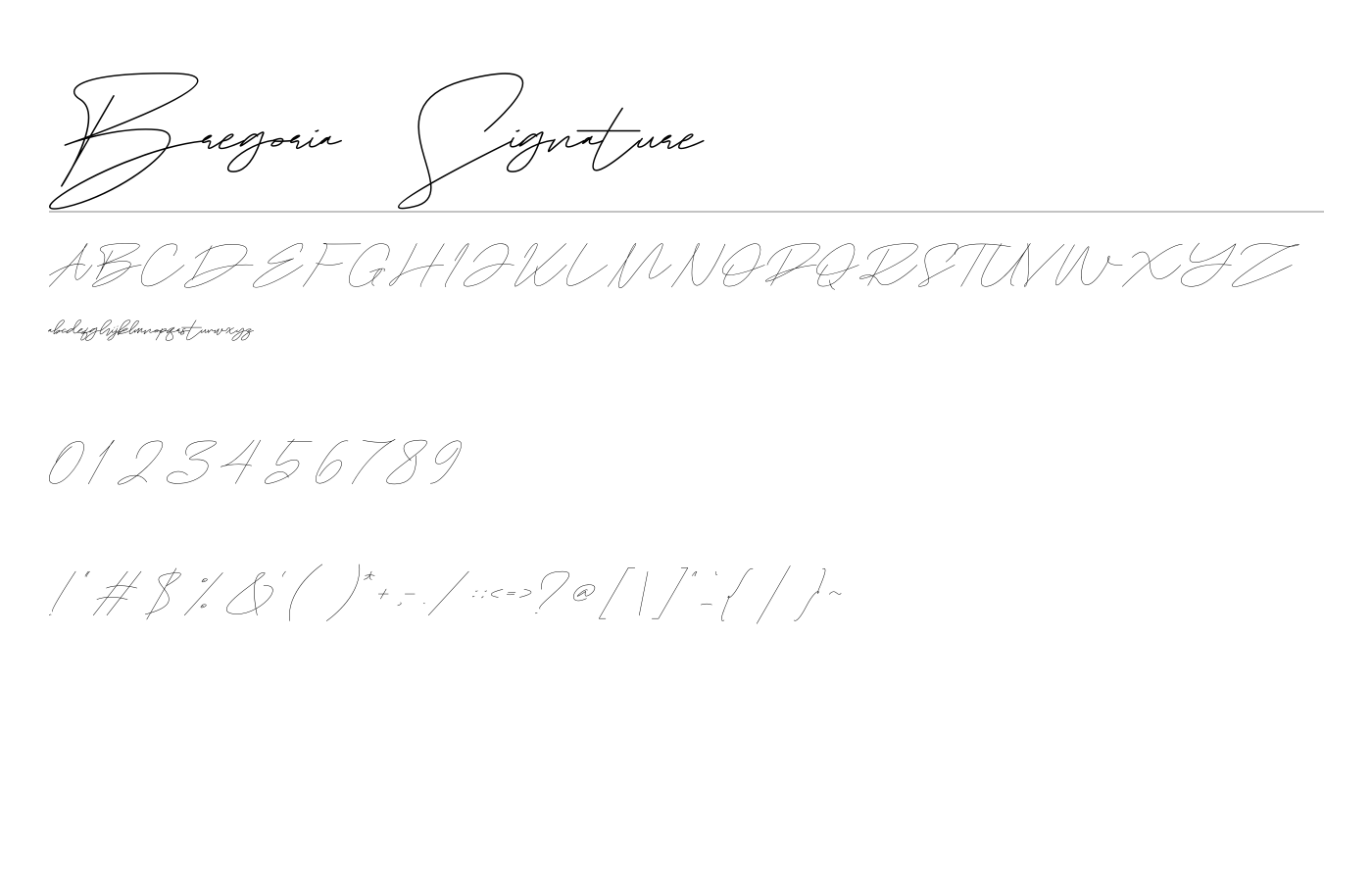
Bregoria Signature is a delicate, handwritten script font that exudes elegance and sophistication through its fine, flowing lines and graceful letterforms. Its light weight and airy style make it perfect for luxury branding, wedding invitations, and personal signatures where a refined, artistic touch is desired. This font shines best in large display uses like logos and headlines, where its unique, calligraphic charm can truly stand out.
Bregoria Signature Font
About Bregoria Signature Font